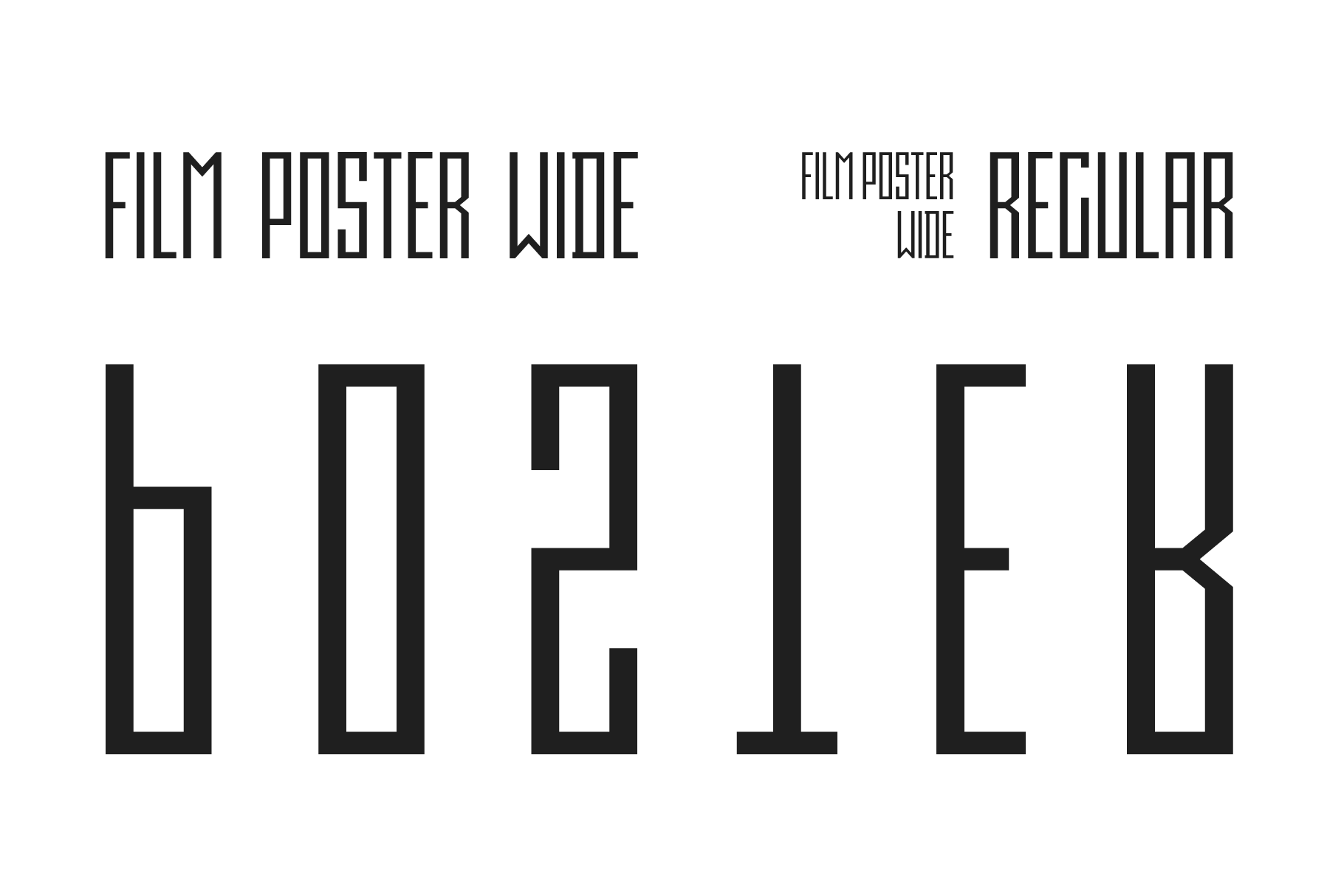
Film Poster Wide |3 fonts
Film Poster Wide Typeface
This pack includes 3 weights:
- Film Poster Wide Light
- Film Poster Wide Regular
- Film Poster Wide Bold
Film Poster Wide is an ultra condensed sans serif display typeface with geometric forms. It can be used in many creative ways, all kinds of graphics, posters, advertising materials, text composition. It fits perfectly for the film industry as well as many other fields.
Font include multilingual support (Latin-1), uppercase and lowercase letters, numerals and a large range of punctuation.